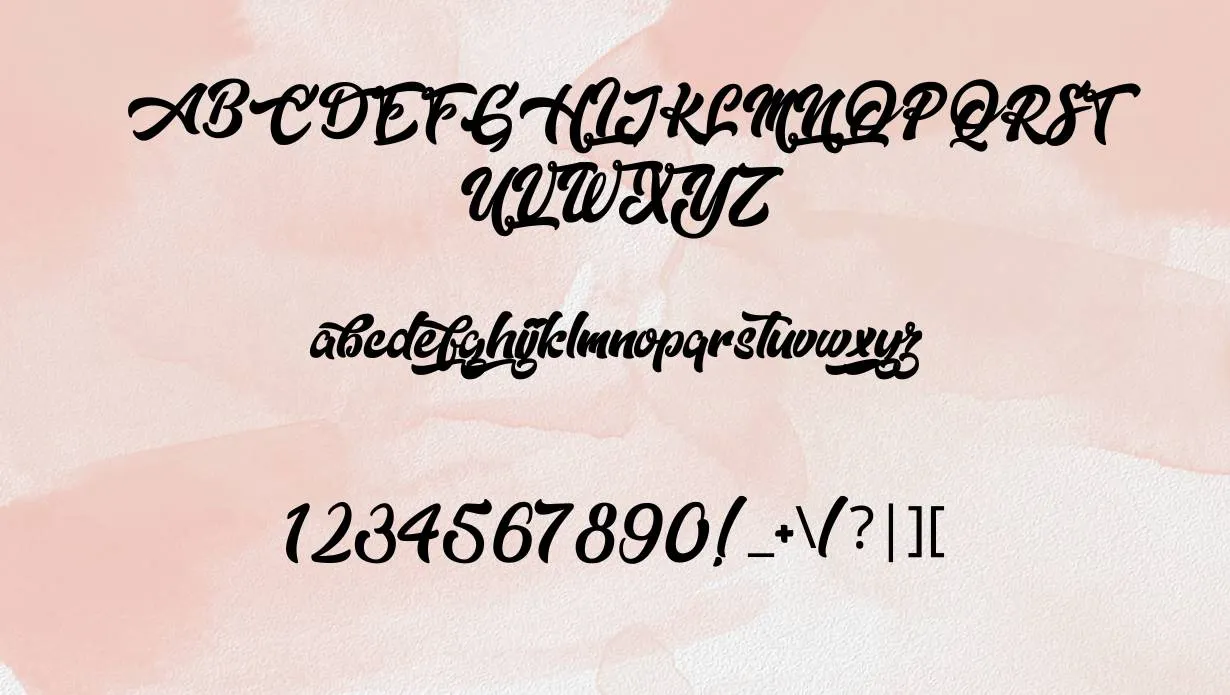
Dope Font stands out with its bold and unique design, making it a perfect choice for projects that want to embrace creativity and edginess.
This typeface is often used in urban art, streetwear branding, and music posters, adding a cool and modern vibe to the visuals.
| Name | Dope Font |
| Designer | Cosme Gonzalez |
The exaggerated letterforms and graffiti-inspired aesthetics of Dope Font create a visual impact that’s hard to ignore, making it a top choice for those looking to make a statement. You can pair it with Playfair Display Font.